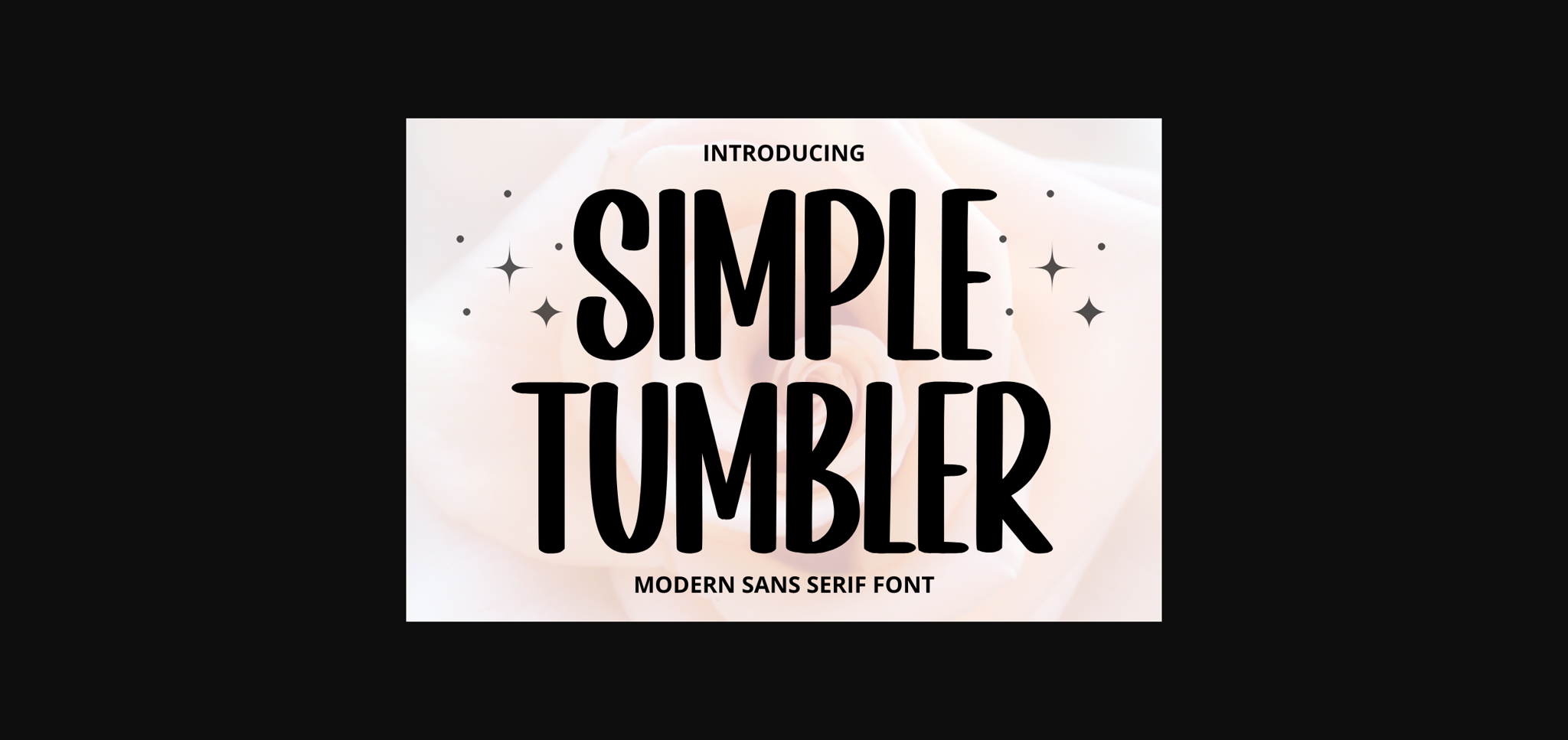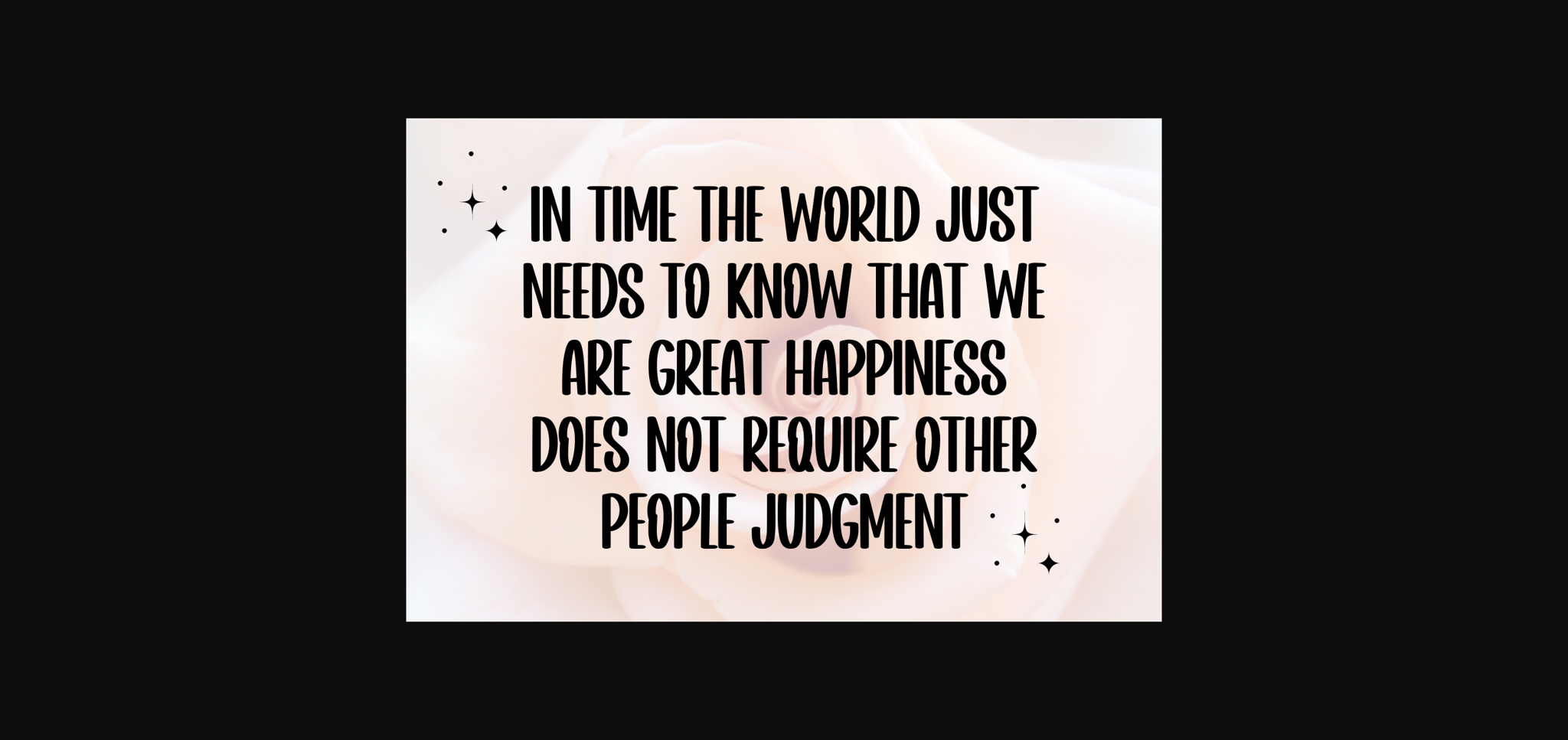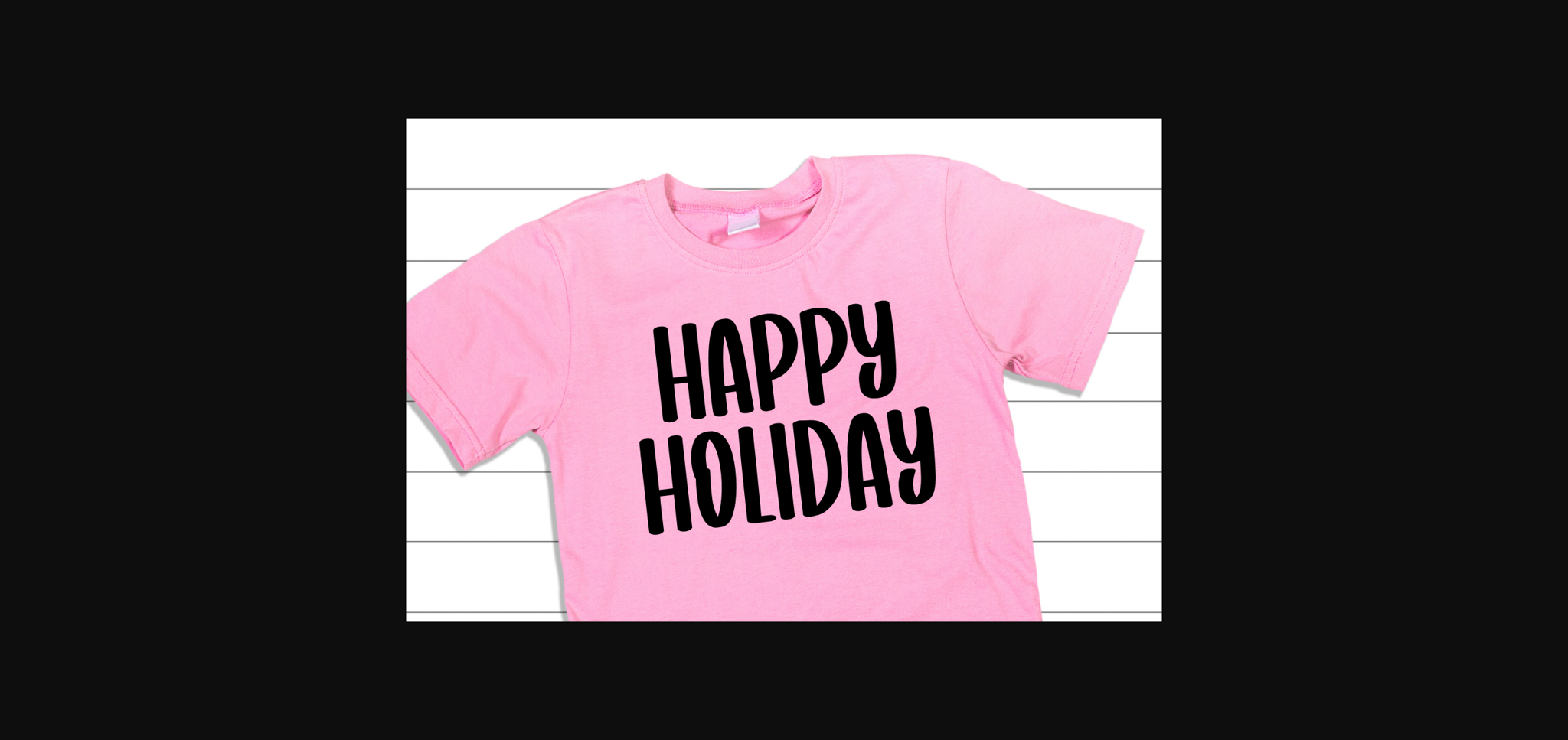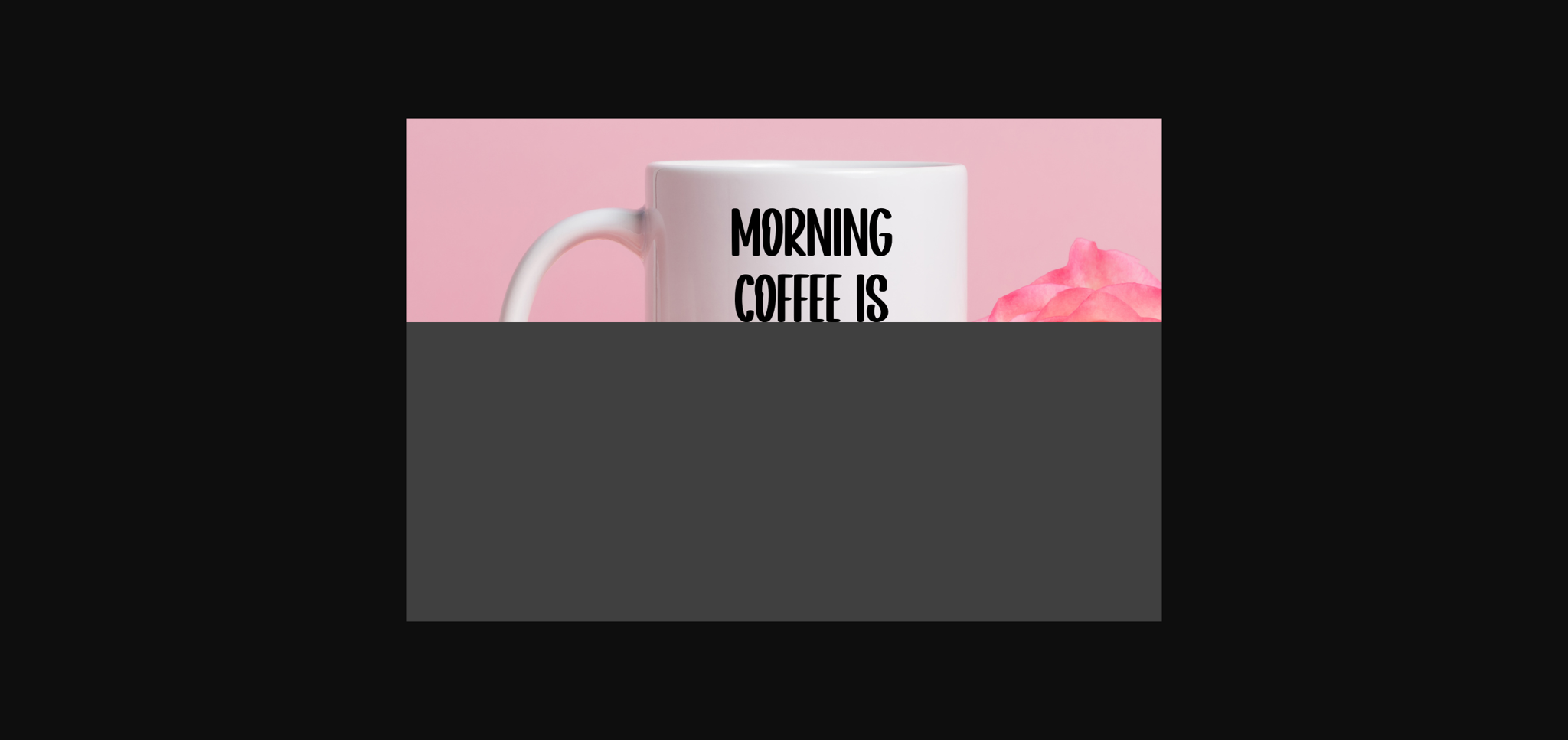
Simple Tumbler Font
About Simple Tumbler Font
Simple Tumbler a modern and friendly sans-serif font, is a delightful blend of whimsy and clarity. Its playful curves and rounded edges bring a sense of warmth to any design. Perfect for children’s books, invitations, and branding, Simple Tumbler radiates a sweet charm that captures attention with its inviting personality.